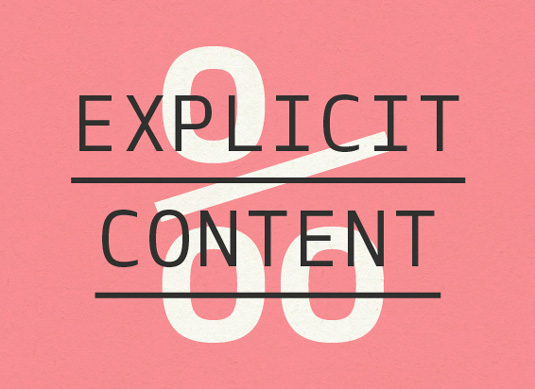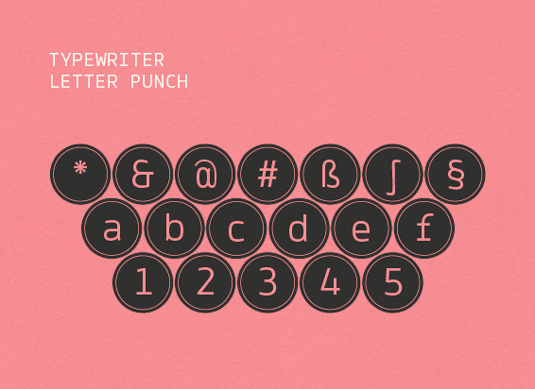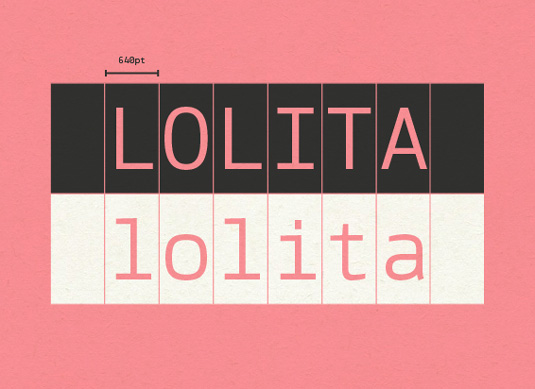
Font of the day: Aina Mono
Aina Mono from The Northern Block
The team at type foundry The Northern Block are behind our font of the day Aina Mono. But what was its inspiration? The team comment on their website: "A typewriter. Nothing says 'draft' quite as well as a manuscript. With its pages worn, and its edges upturned, a monospaced typeface is ideal to complete the outfit."